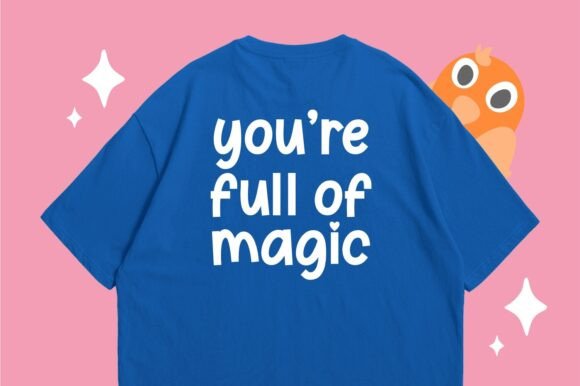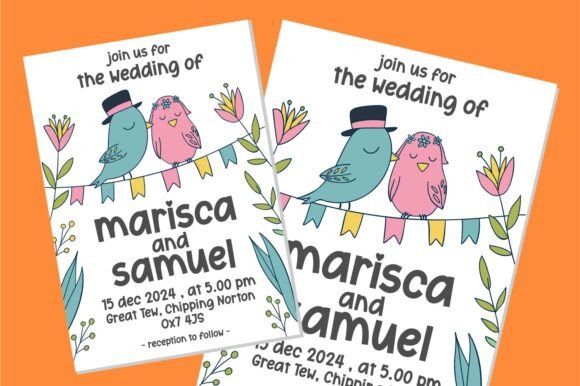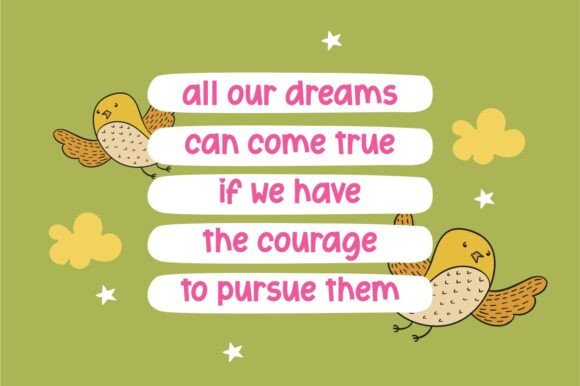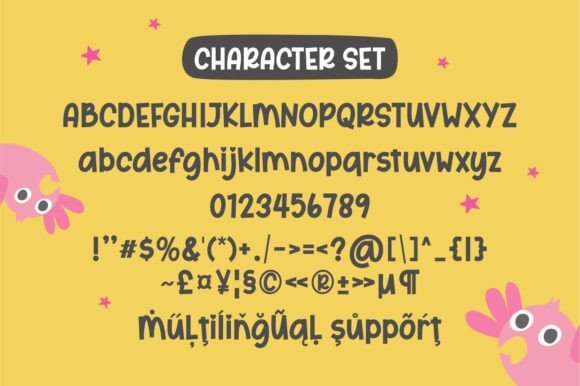
Introduction to Chirp Birds Font
Have you ever stared at a blank canvas, waiting for inspiration to strike, only to have it arrive in the form of a cute bird perched on your desk? That’s exactly what happened to me when I first laid eyes on the Chirp Birds Font. Its playful, handwritten style instantly captured my imagination, and I knew I had to learn more about this delightful design resource.
As a designer, I’m always on the lookout for high-quality fonts that can elevate my creative projects. The Chirp Birds Font is more than just a pretty face – it’s a versatile tool that can add a touch of whimsy to everything from greeting cards to children’s books. With its transparent background and free download option, it’s a valuable resource for designers who want to add a personal touch to their work without breaking the bank.
Key Features of Chirp Birds Font
• High-quality vector design, ideal for creative projects that require a unique touch.
• Comes with a transparent background, making it easy to integrate into various design elements.
• Features a range of font sizes and resolutions, from 72 dpi to 300 dpi, suitable for various design applications.
• Unique, hand-drawn design with intricate details, adding a personal touch to any creative project.
• Includes a comprehensive character set, including uppercase and lowercase letters, numbers, and punctuation marks.
Honest Review: Chirp Birds Font
As a designer, I’m always on the lookout for high-quality design resources to elevate my creative projects. The Chirp Birds Font caught my eye with its unique and playful style. I was excited to give it a try and see how it would work for me.
• ✨ The transparent background allows for seamless integration with other design elements.
• ✨ The font’s playful style is perfect for creative projects, such as children’s books, party invitations, and more.
• ⚠️ The font is not suitable for formal or professional projects due to its casual style.
• ⚠️ Some characters may not be available in the font, which could be a problem for those who need a full character set.
Overall, I’m impressed with the Chirp Birds Font and would definitely recommend it for creative projects where a playful, whimsical style is needed. While it may have some limitations, the font’s unique character and transparent background make it a valuable design resource.
The Chirp Birds Font is perfect for:
• Logo designs
• Business cards
• Social media graphics
• Marketing materials
Use the Great Vibes Font for invitations, greeting cards, or any design project that needs a unique and stylish touch. Compared to Chirp Birds Font, Great Vibes Font has a more refined and elegant feel, making it suitable for more formal designs.
The Dancing Script Font is a beautiful, cursive script font ideal for creative projects that require a touch of whimsy and playfulness. It features a transparent background and is available for free download, making it a great design resource for designers on a budget.
Use the Dancing Script Font for designs that need a sense of movement and energy, such as party invitations, social media graphics, or promotional materials. Compared to Chirp Birds Font, Dancing Script Font has a more playful and dynamic feel, making it suitable for more casual designs.